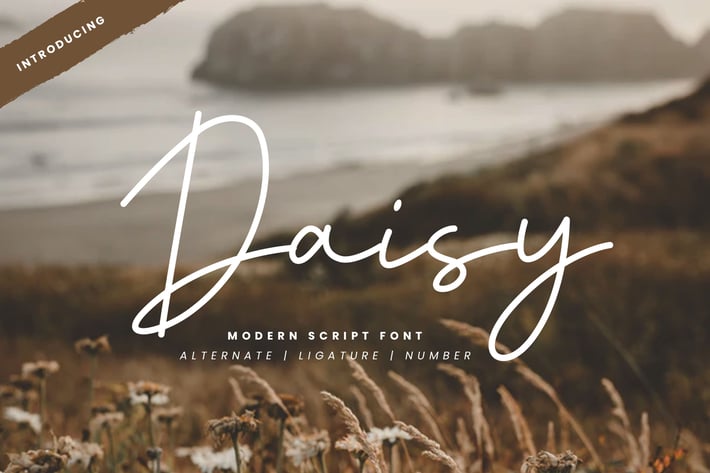
Daisy - Modern Script Font
Are you looking for an medern script signature font? We can help! Try to download our Daisy modern script font. The font is suitable to use for all all purpose. Try to use it on Wedding invitation, greeting card, poster, quotes, postcard, photography, branding, editorial, and signature to see the best of it :)
Basic Latin A-Z and a-z
Ligature and Alternate
Multilangual Support